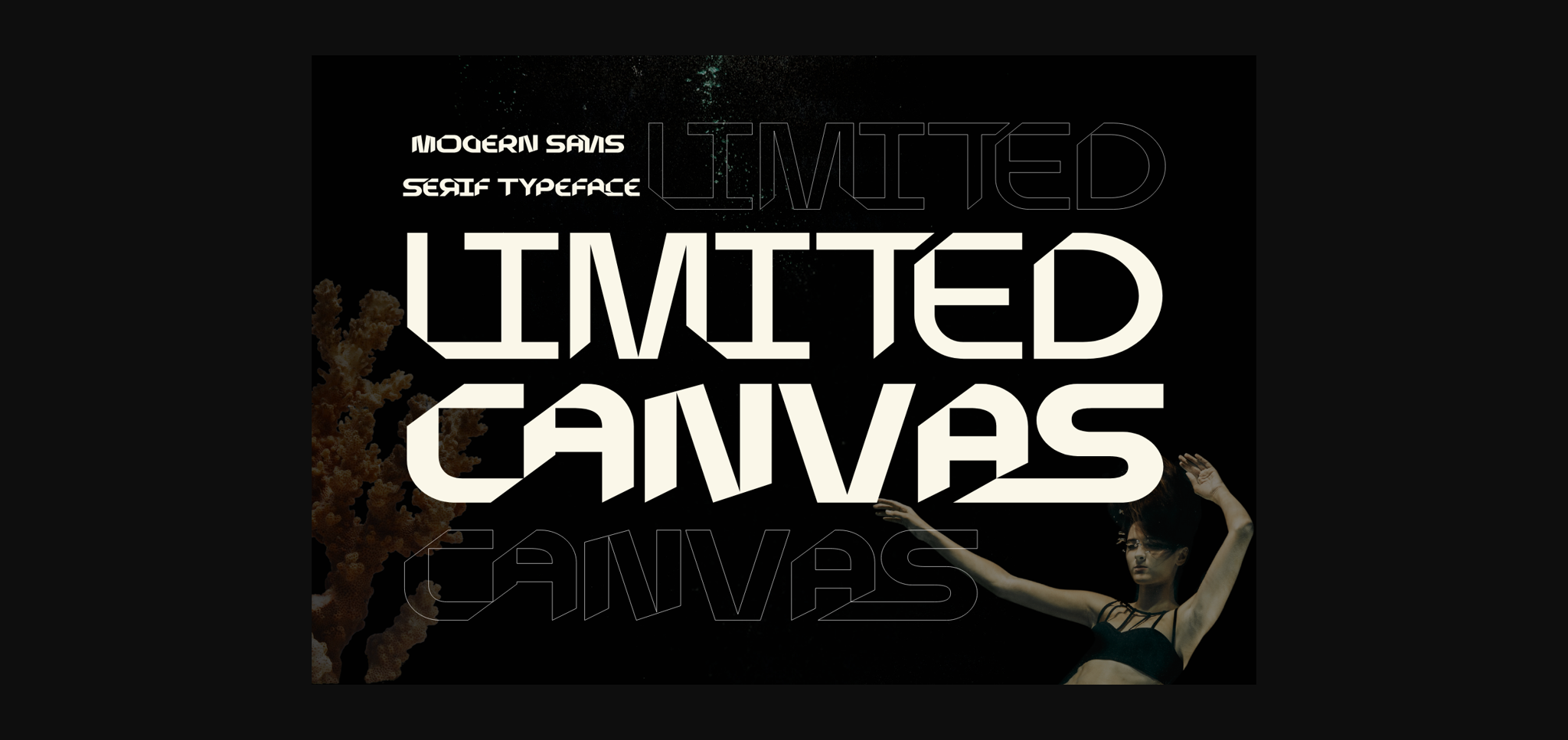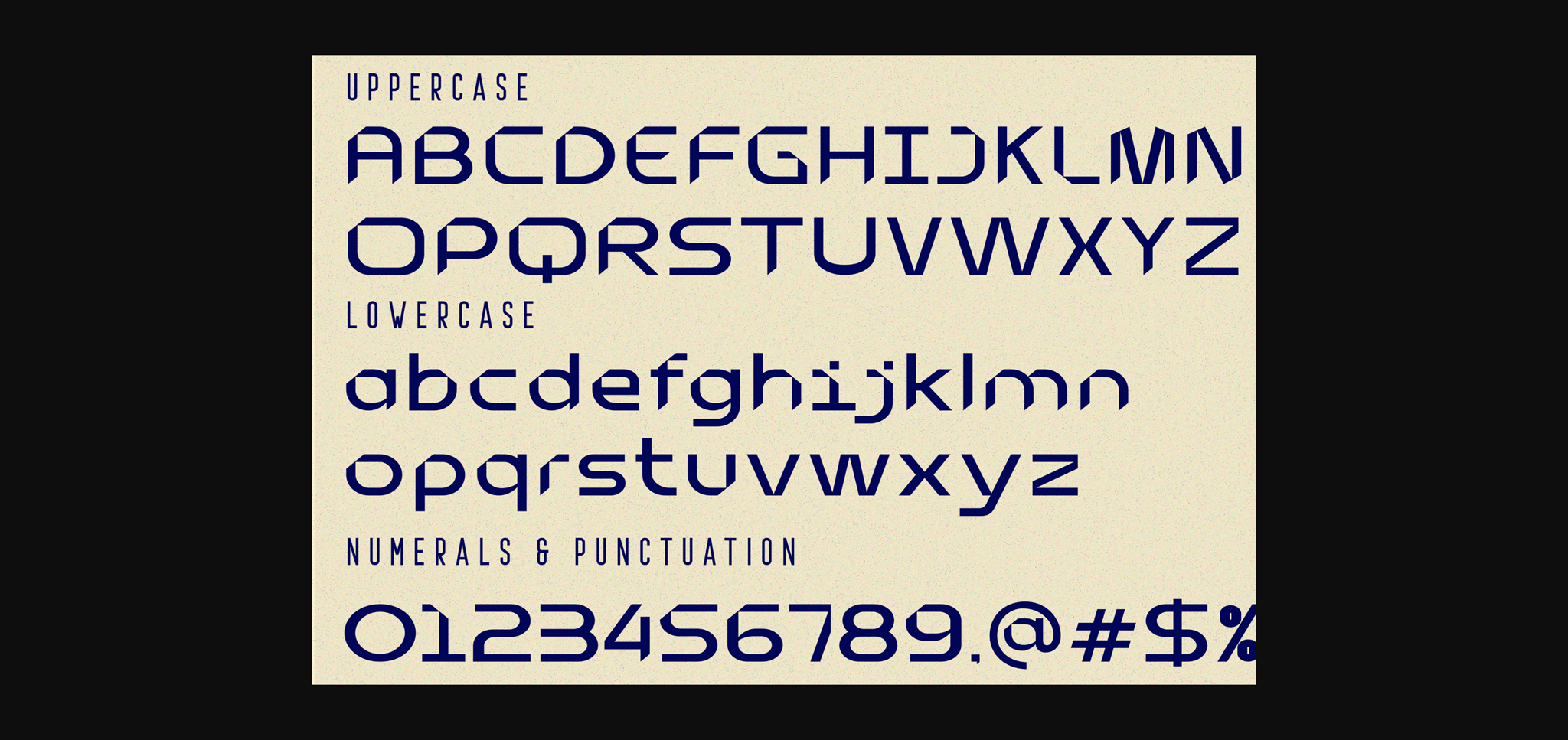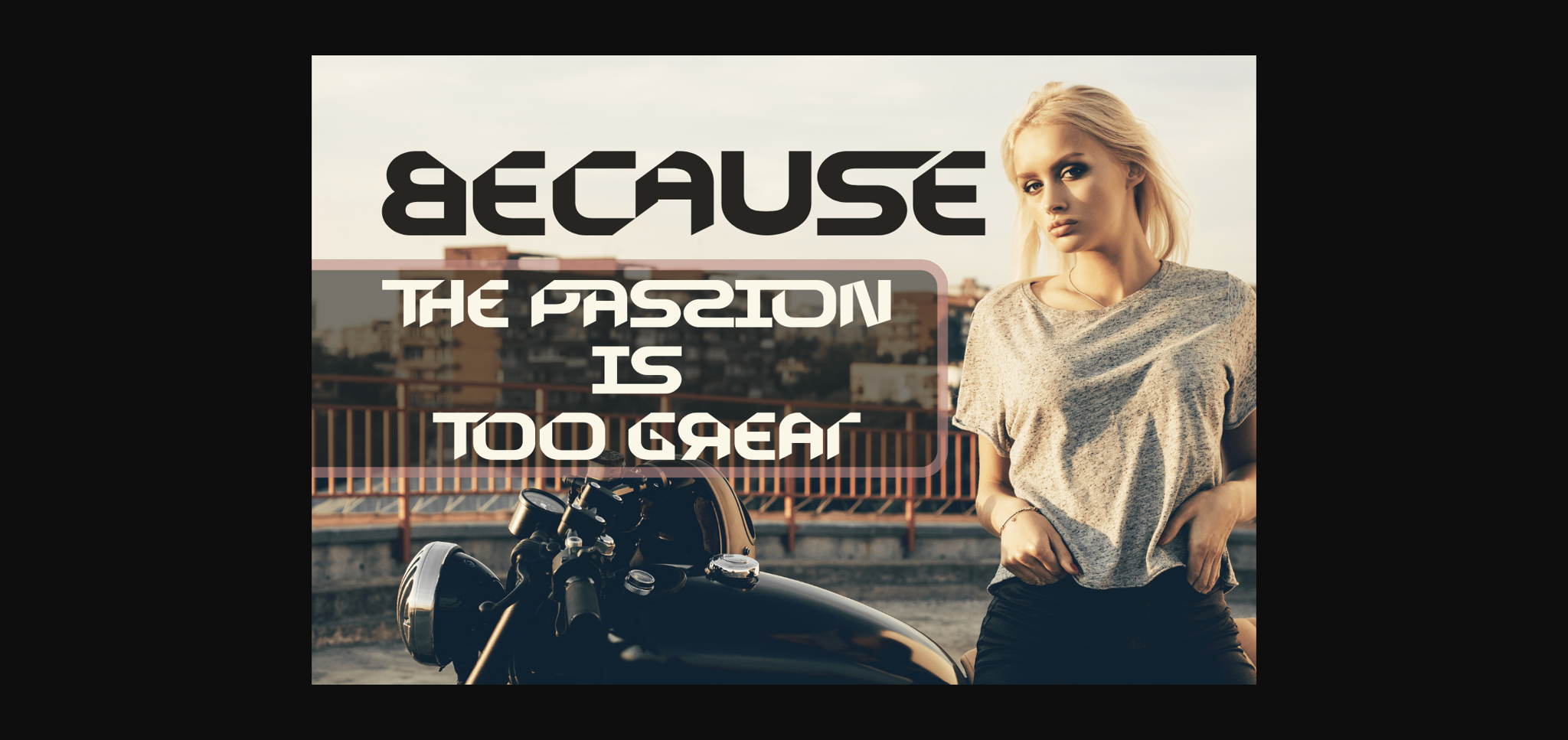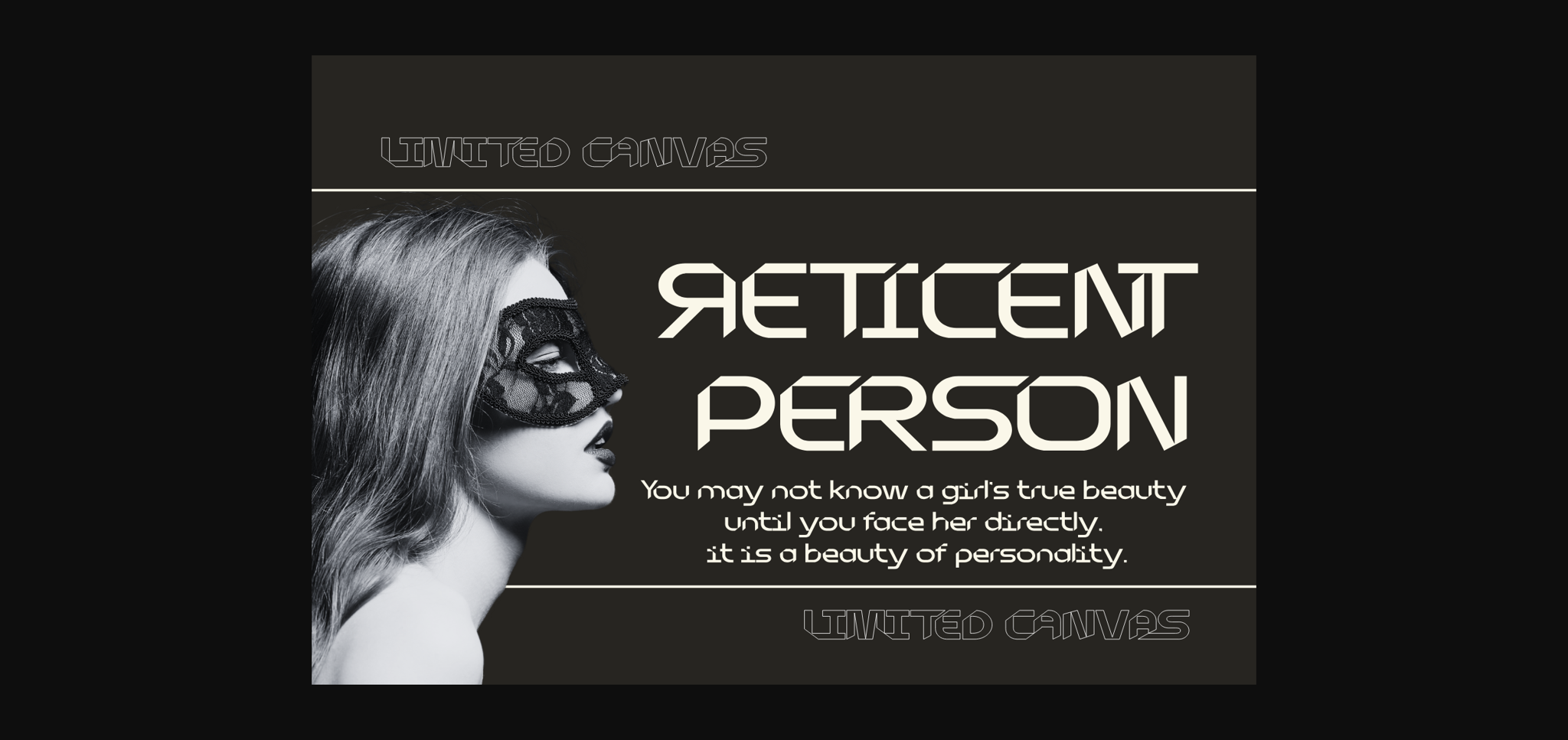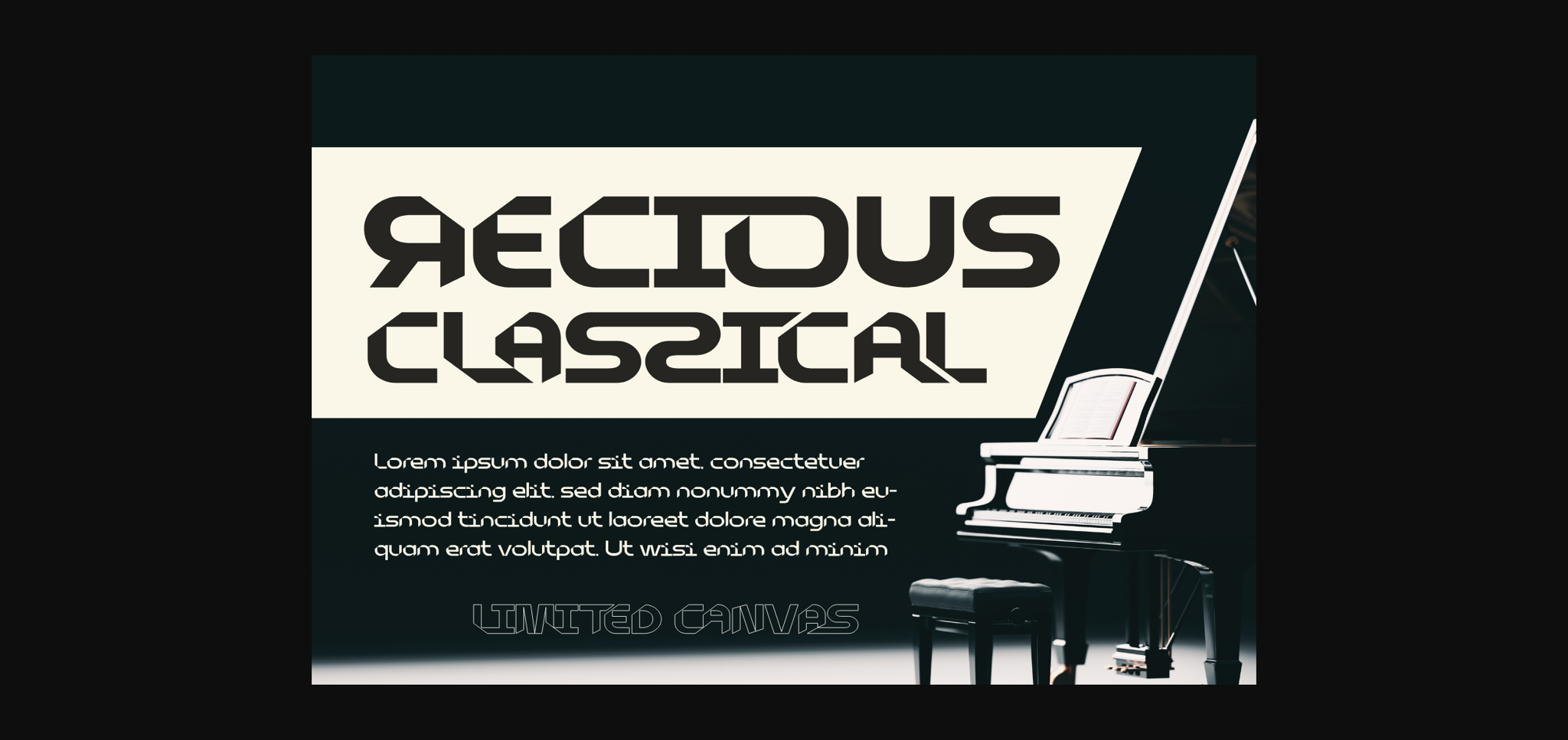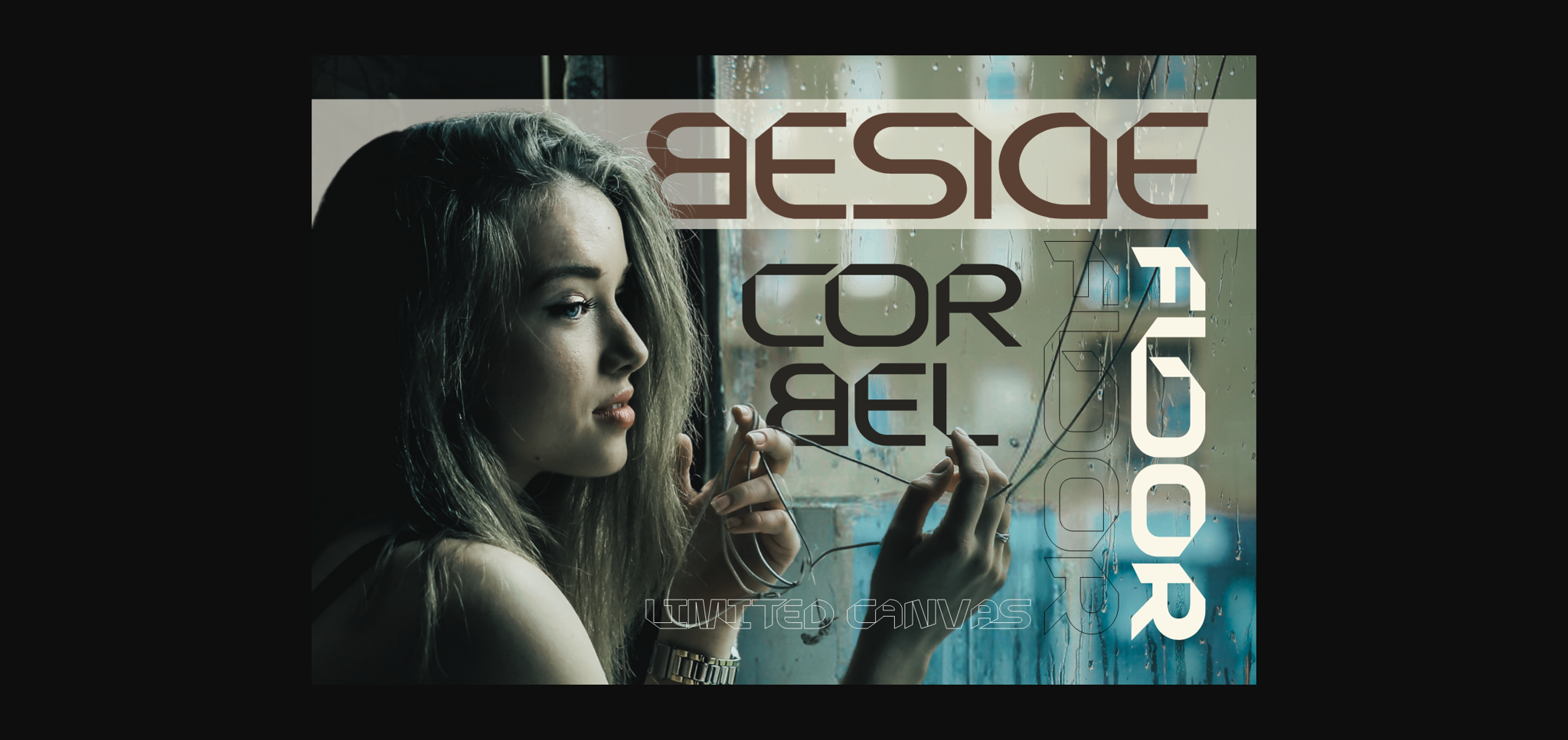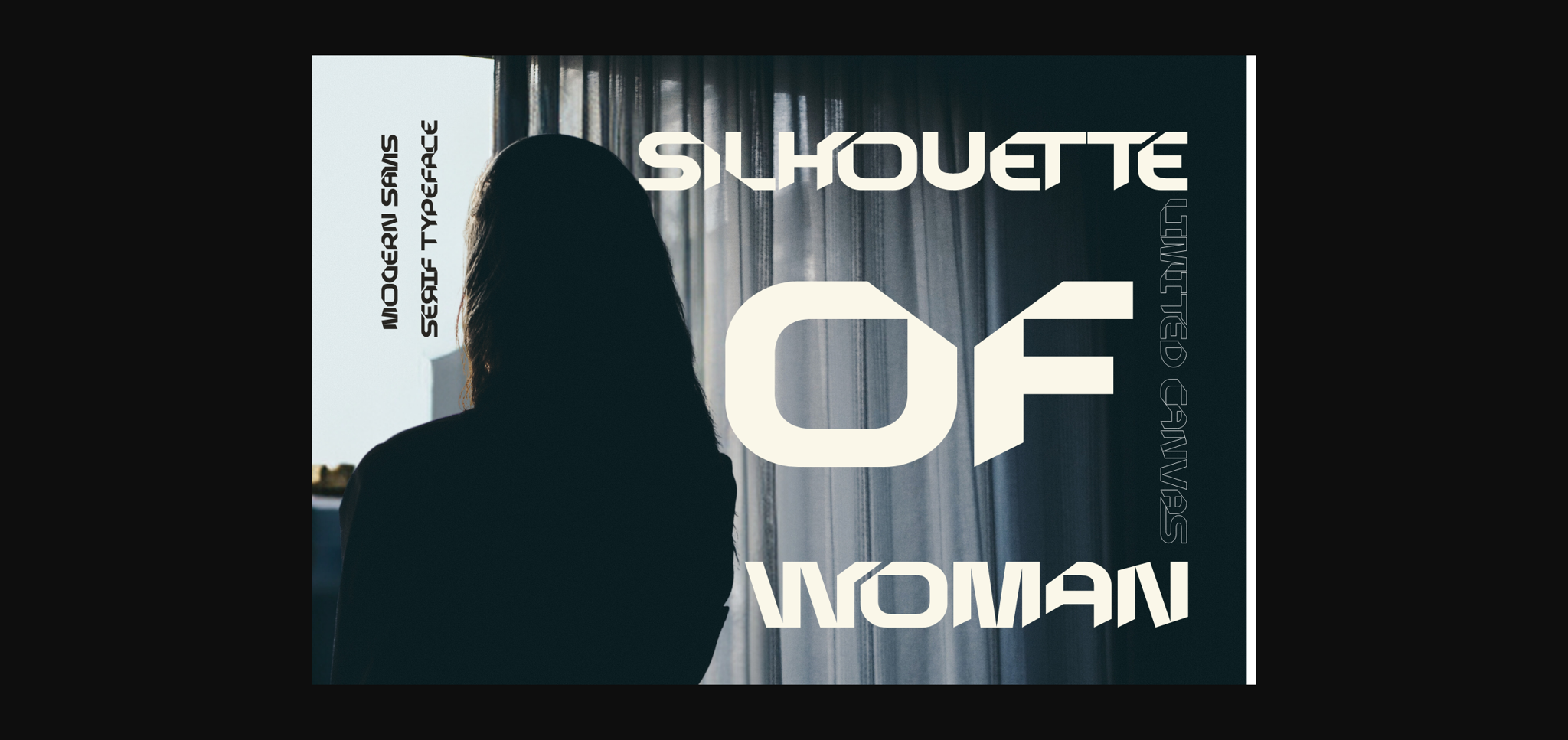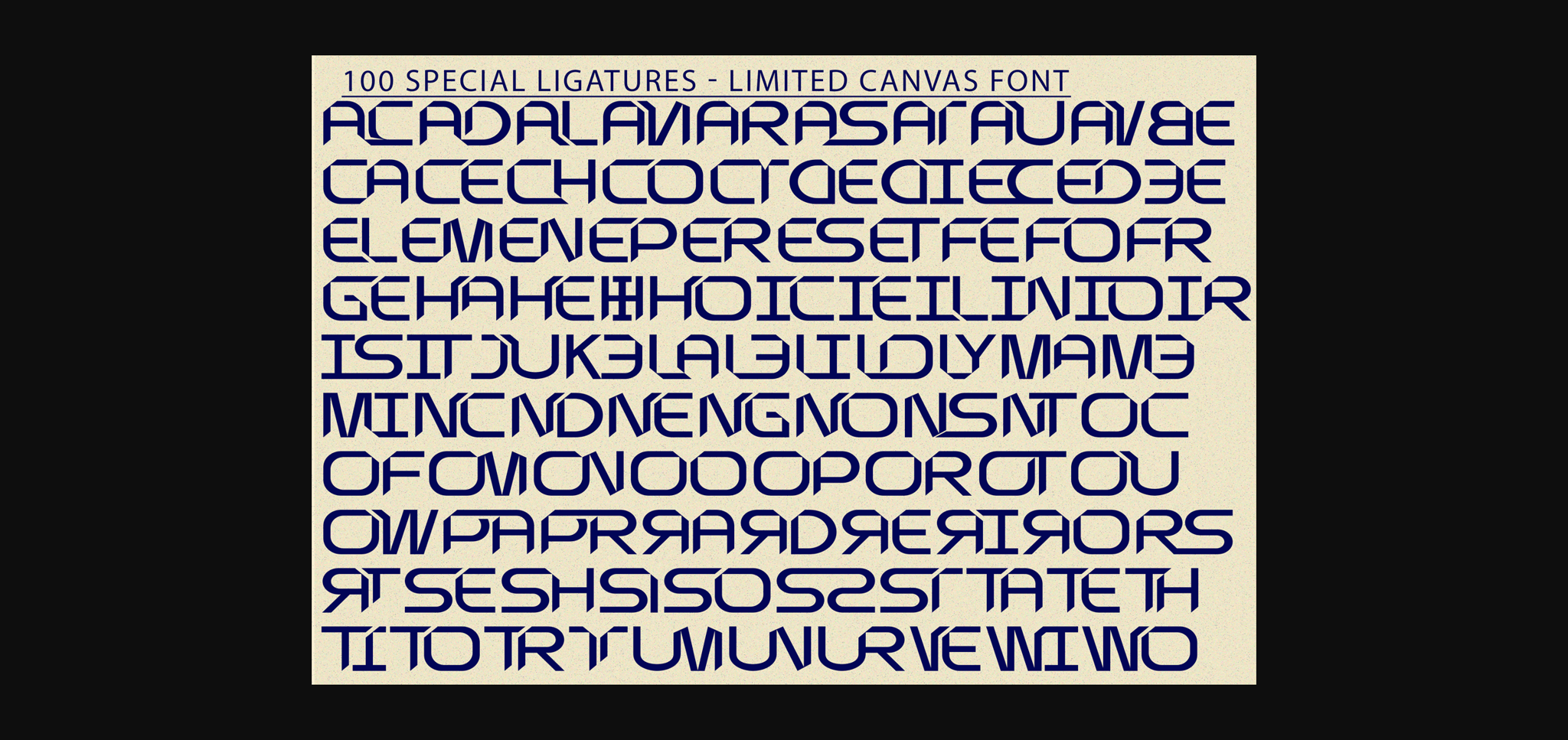
About Limited Canvas Font
Limited Canvas is a variable geometric sans, designed with modern stylish letters that have a neutral feel. The idea behind it was to create an all-purpose font that looks great in headlines, and short and long text. The font is suitable for any branding project like tech, digital, poster, logo, sport, and many more. Outstanding in a wide range of contexts.